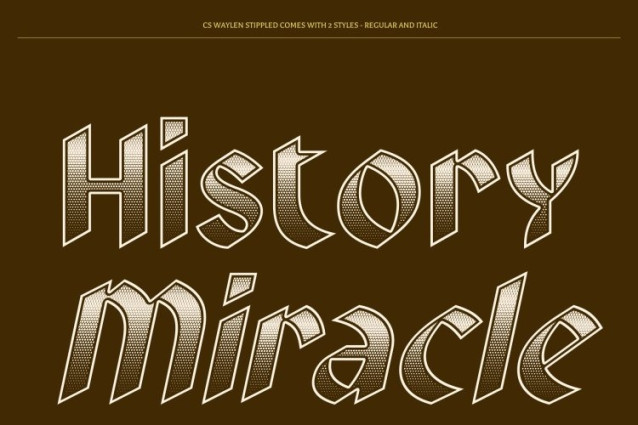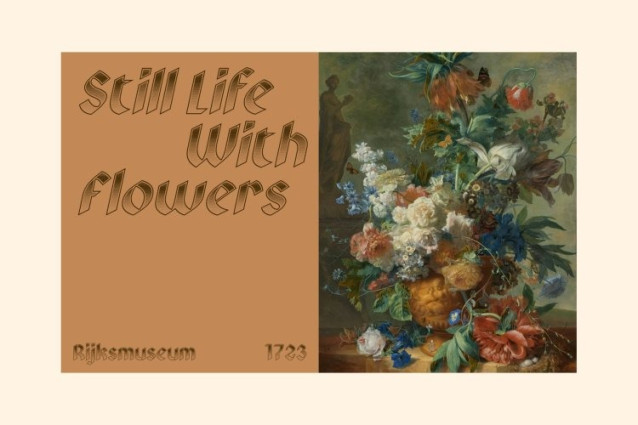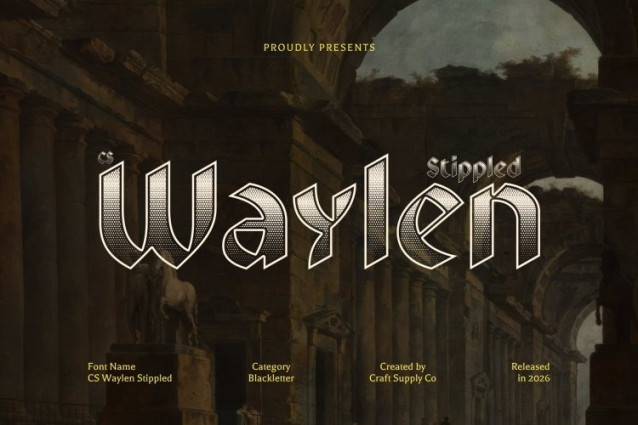
CS Waylen Stippled Font
CS Waylen Stippled Font – This is a powerful blackletter display font that captures the dramatic character of traditional Gothic typography. Its sharp angles, bold strokes, and commanding structure reflect the artistry of medieval handwriting while maintaining a strong visual presence in modern design. Enhanced with a stippled texture, the letterforms gain a subtle dotted surface that adds depth and a handcrafted engraved feel, enriching the font’s historical character.
Authority and Elegance in Every Letter
Inspired by historical calligraphy, this font conveys a sense of authority, prestige, and timeless elegance. The thick and structured letterforms create a bold visual impact, while the textured detailing introduces an additional layer of sophistication. This combination results in typography that feels both classic and visually compelling.
Dramatic Character with Historic Influence
The distinctive blackletter structure, combined with the stippled finish, gives the font a dramatic and refined appearance. Its bold shapes command attention while maintaining the ornate beauty associated with traditional Gothic lettering.
Perfect for Heritage and Statement Designs
This is ideal for event invitations, posters, editorial titles, album covers, heritage branding, and themed designs that require a strong historical presence. By blending classic blackletter forms with a textured stippled finish, the font delivers a bold typographic voice that feels powerful, elegant, and timeless.